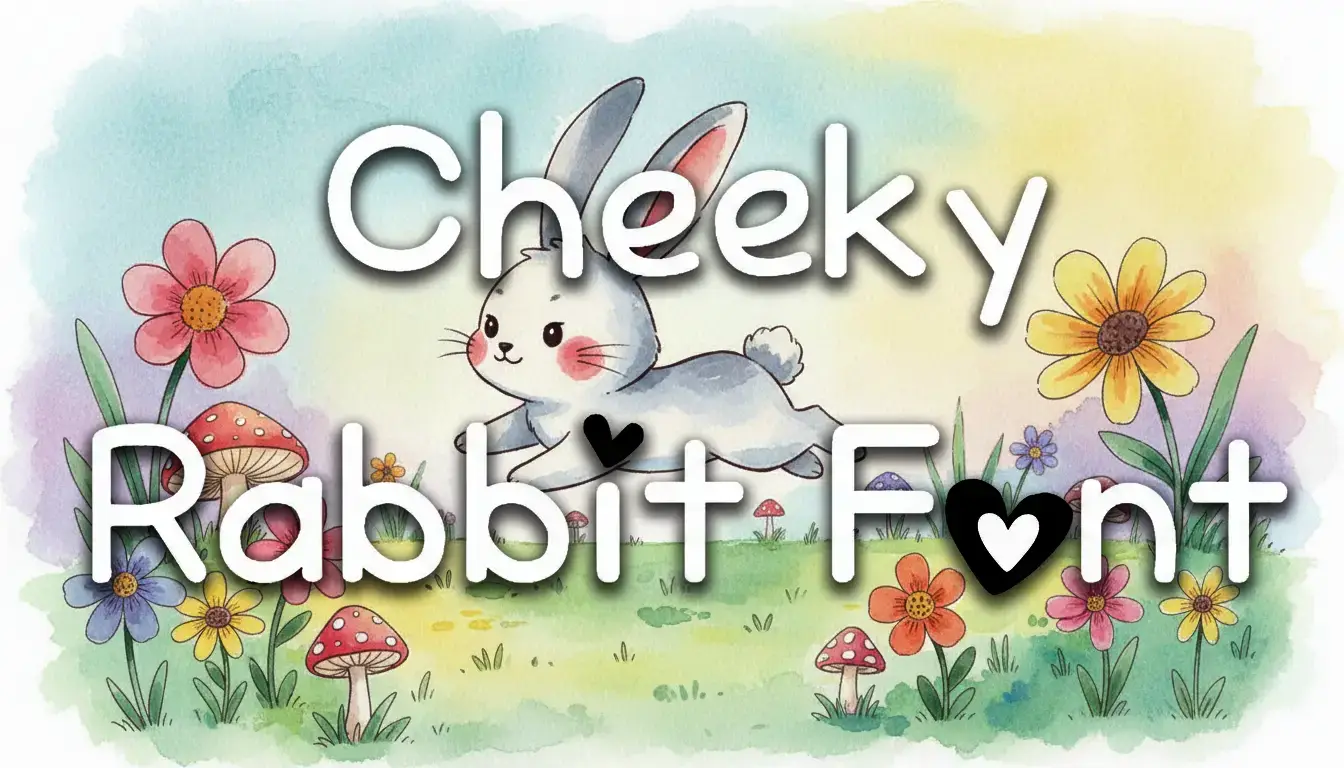
Cheeky Rabbit Font
Cheeky Rabbit Font Preview
Cheeky Rabbit
Cheeky Rabbit is a comic font. Its bouncy, rounded letters feel playful, like lettering from a cartoon or a comic book. It's a free download, and you can try it with your own text in the preview above first.
- Category: Comic font
- Glyphs: 638
- Languages: English, Spanish, Portuguese and Italian, plus Greek and Cyrillic characters
What You Can Type With Cheeky Rabbit
You get every letter from A to Z in both cases and all the numbers from 0 to 9, which means Cheeky Rabbit can handle full sentences, dates and prices. Everyday marks like &, !, ? and @ are there too. Thanks to its accented letters, it also works for Spanish, Portuguese and Italian, not just English. On top of that, it includes Greek and Cyrillic characters.
Where Cheeky Rabbit Works Best
Think of Cheeky Rabbit for comic strips, speech bubbles and playful headings. Cartoon fonts are great for short, fun lines. If you place it over a busy photo, add a thick outline or a drop shadow so it stays readable.
Does Cheeky Rabbit support accented letters?
Yes. Cheeky Rabbit includes the accented letters needed for Spanish, Portuguese and Italian, so it works for more than just English.